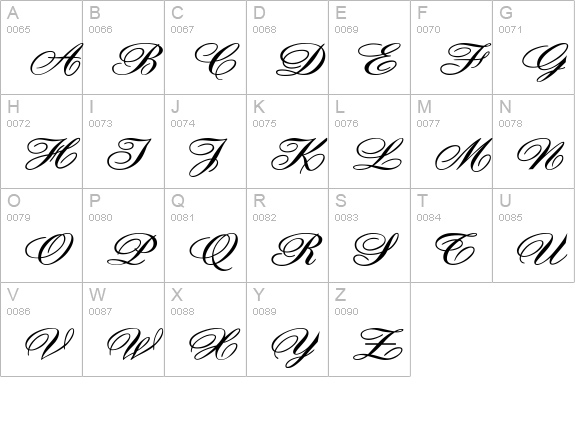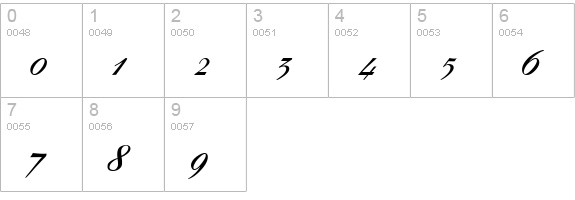
DebonairJF Font Details
DebonairJF is a stylish and sophisticated font that exudes elegance and charm. With its sleek lines and graceful curves, this font is perfect for adding a touch of refinement to your designs. Whether you're creating invitations, branding materials, or website headers, DebonairJF will elevate your project to new heights. Best of all, DebonairJF is completely free to download at FontsMarket.com. This means you can enjoy the beauty and versatility of this font without any cost. Don't miss out on the opportunity to enhance your designs with the timeless appeal of DebonairJF. Download it today and let your creativity soar!